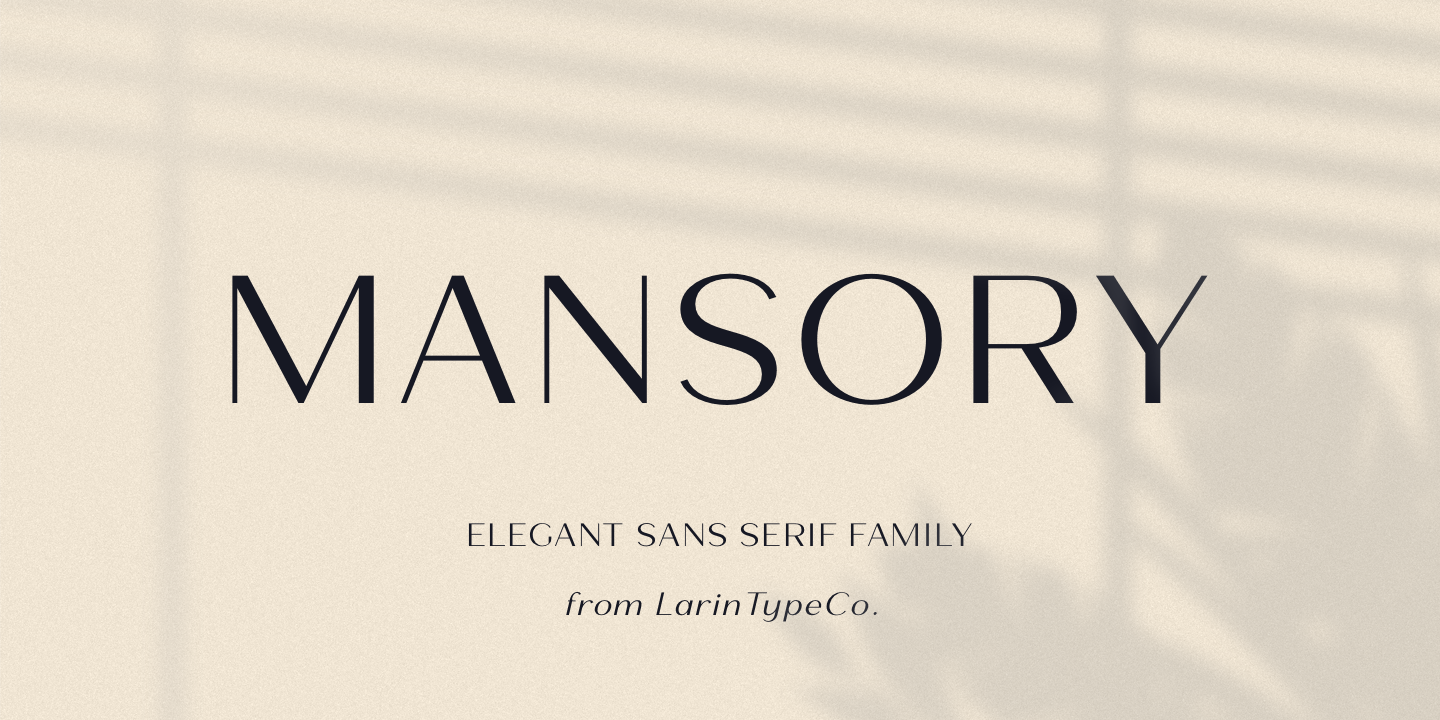
Mansory Font is perfect for architectural firm branding, construction company logos, masonry contractor signage, heritage building restoration, luxury home builders, stone craftsmanship marketing, historical preservation projects, and artisan construction materials.
Mansory Font is exciting because it captures the enduring strength and timeless craftsmanship of traditional masonry through its solid character design that embodies the precision of stonework and the architectural heritage of master builders. Its structural aesthetics and artisanal authenticity make it the perfect choice for brands that want to communicate durability, craftsmanship, and the lasting legacy of quality construction.
The Mansory Font family includes multiple construction-inspired variations: Mansory Light, Mansory Regular, Mansory Bold, Mansory Condensed, Mansory Stone, and Mansory Brick, along with architectural symbols and construction decorative elements, providing designers with comprehensive tools for creating authentic building and craftsmanship-themed brand experiences.
When exploring architectural typography solutions, Mansory Font Free Download emerges as the premier choice for designers working on construction and architectural projects that require genuine craftsmanship sophistication and structural appeal. This robust typeface embodies the essence of traditional building arts while offering the technical precision that contemporary construction companies and architectural firms require. The font's solid character and artisanal authenticity create immediate connections with audiences who appreciate quality construction and architectural excellence.
Construction professionals consistently choose Mansory Font for projects requiring authentic building authenticity and powerful structural appeal. Its expertly crafted letterforms feature architectural influences that work exceptionally well in both large-scale construction site signage and intimate artisan workshop materials. The font's ability to convey craftsmanship and structural integrity while maintaining strong brand recognition makes it invaluable for comprehensive identity systems in the construction, architecture, and traditional building craft sectors.
Whether you're developing construction company identities, creating architectural firm marketing materials, or designing heritage restoration project promotions, Mansory Font delivers the authentic building character and craftsmanship appeal that resonates with audiences who appreciate quality construction and architectural heritage. Its structural significance and artisanal design ensure your projects honor building traditions while maintaining contemporary professional standards that attract modern clients seeking quality construction services.